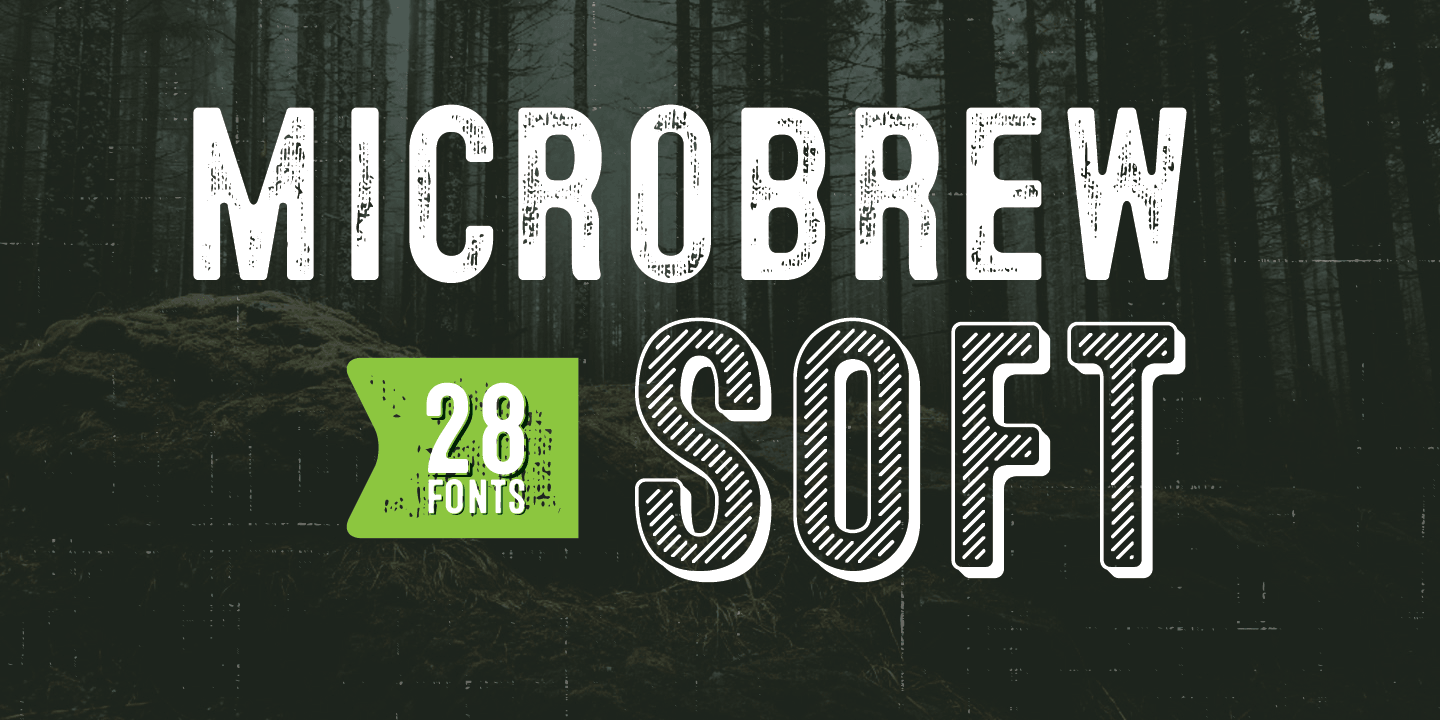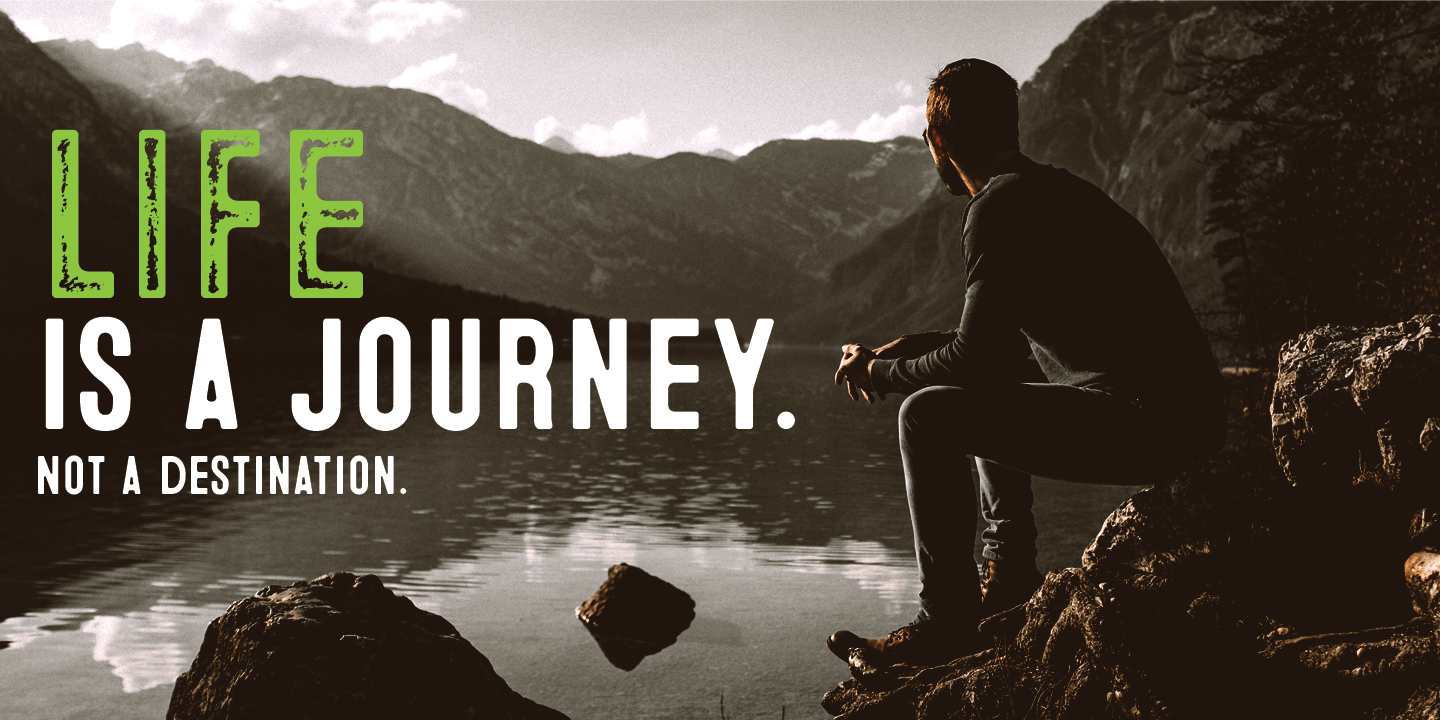
Microbrew Soft
Font Family by Albatross
Microbrew Soft is the latest addition to the Microbrew family. Microbrew Soft includes a wide variety of textures while retaining soft edges and clean outlines. With 27 individual styles plus an eclectic set of ornaments and catchwords, the possibilities are limitless when it comes to how many faces the font family can wear in your design. Microbrew Soft sports a nice mix between wood type poster style and vintage letterpress. The more detailed styles work well at large sizes, and the cleaner styles add legibility at smaller sizes.
Microbrew Soft is an all caps display font, but the lowercase act as alternates so adding variety to your letterforms is as easy as mixing uppercase and lowercase letters. To add to the realism, Microbrew Soft includes double-letter ligatures. Opentype features include automatic fractions, subscript numbers, superscript numbers, and double-letter ligatures.